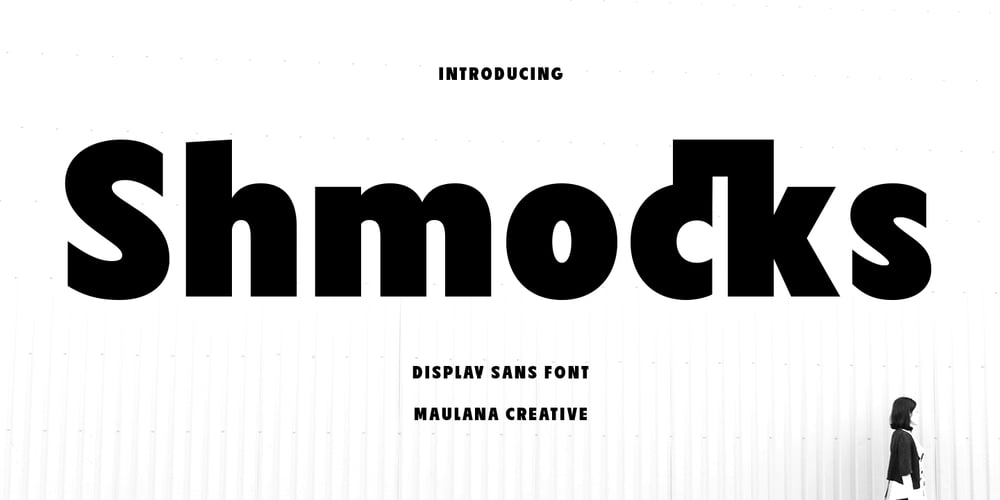
MC Shmocks
MC Shmocks font
MC Shmocks Font Family was designed by Gilang Maulana and published by Maulana Creative. MC Shmocks contains 1 styles and family package options. Shmocks is a classic yet modern sans font. Bold stroke, fun character with a bit of ligatures and alternates. To give you an extra creative work. Shmocks font support multilingual more than 100+ language. This font is good for logo design, Social media, Movie Titles, Books Titles, a short text even a long text letter and good for your secondary text font with script or serif. Make a stunning work with Shmocks font. Cheers, Maulana Creative